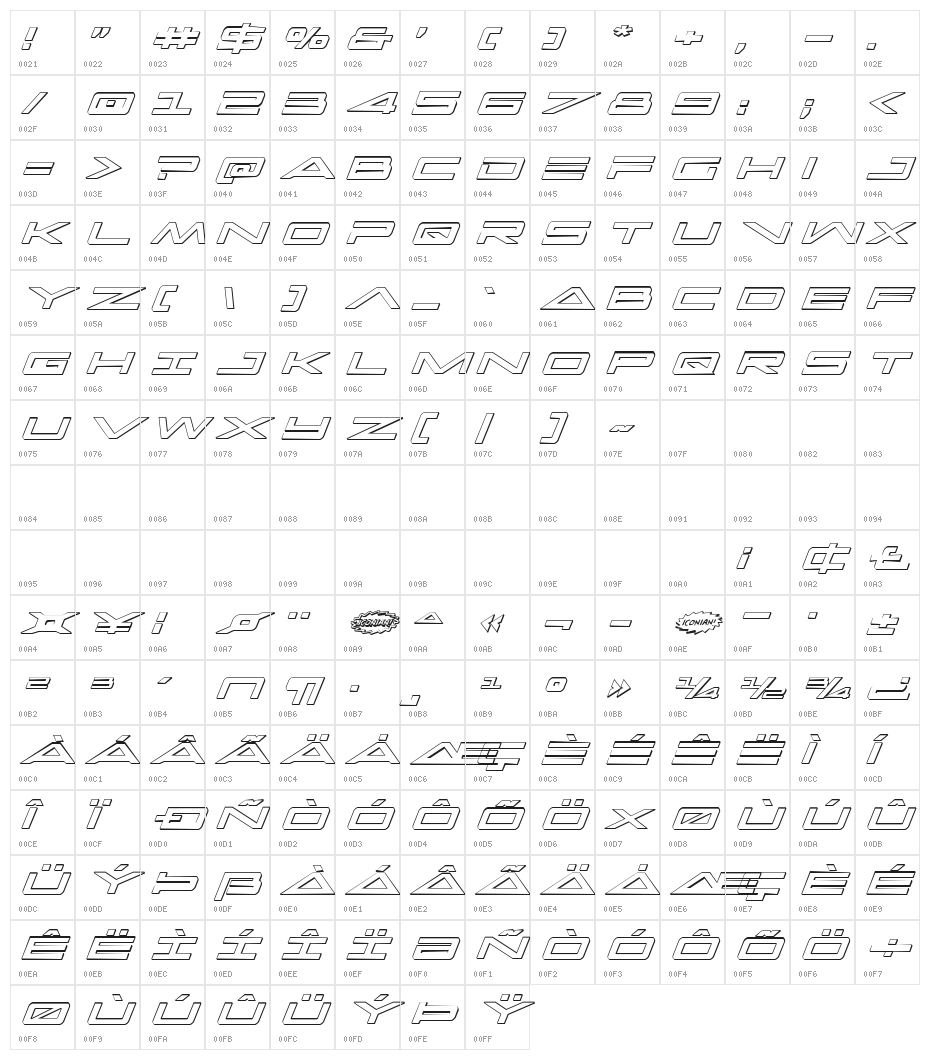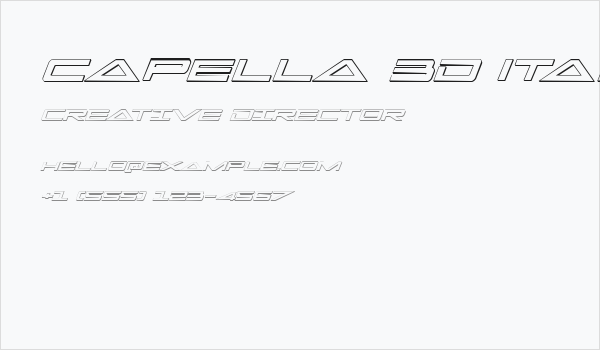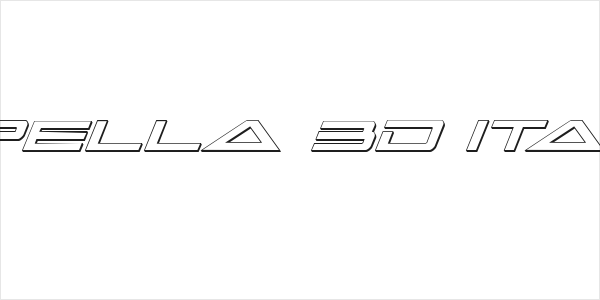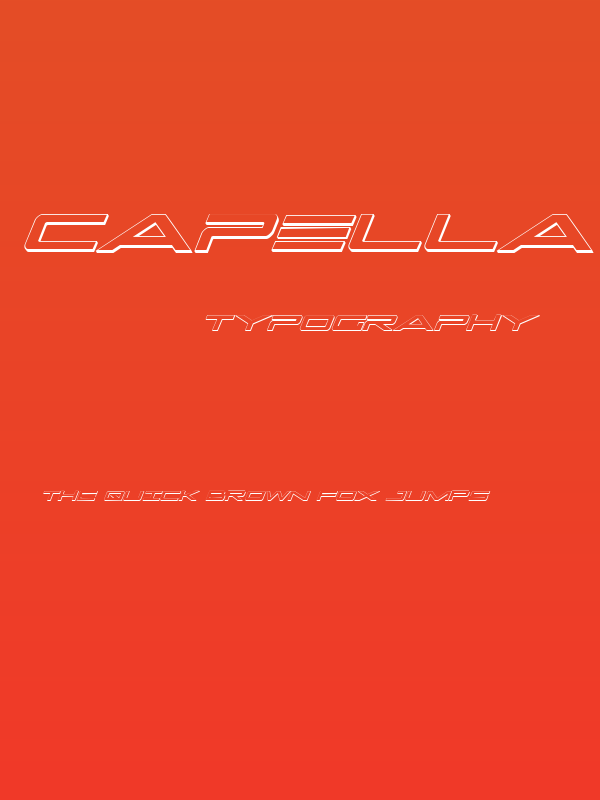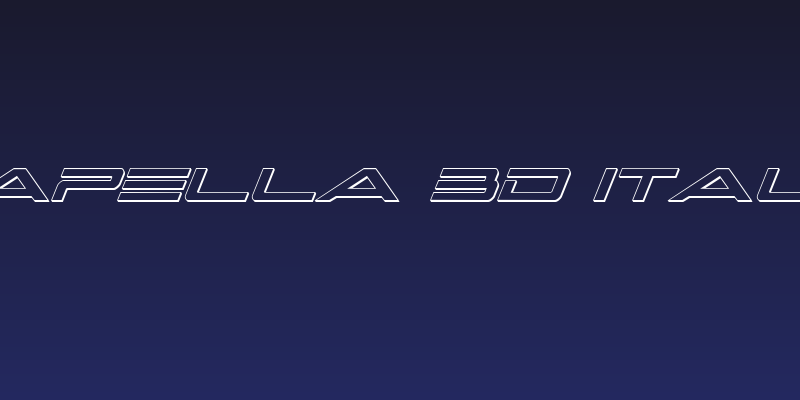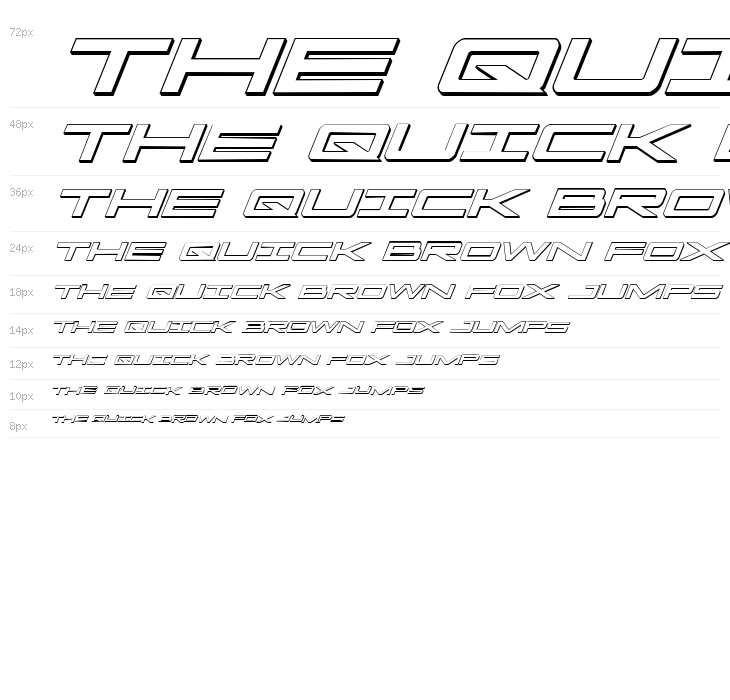
Capella 3D Italic Font
Capella 3D Italic Description
This font features a futuristic and dynamic design with a 3D effect, characterized by its angular and geometric letterforms. The uppercase and lowercase letters maintain a consistent style, with sharp edges and a sense of movement. The numerals and special characters are designed to complement the overall aesthetic, adding to the font's modern and technological feel. The use of outlines and internal lines gives the font a layered appearance, enhancing its depth and visual interest.
| Proposed Projects | Ideal for sci-fi themed projects, technology branding, video game titles, and modern posters. |